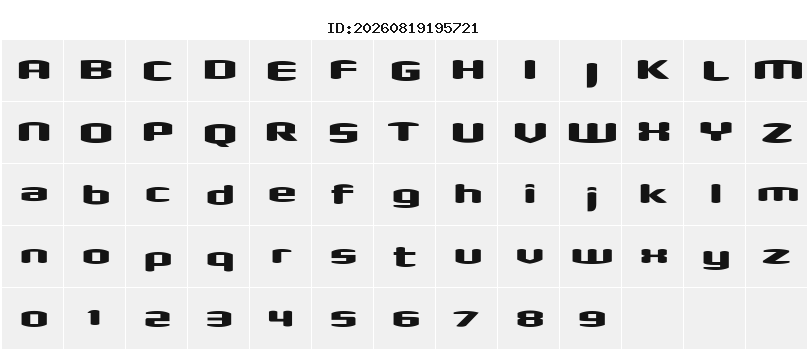
Shimano Preview
• Font Name: Shimano
• Full Font Name: Shimano-RoundBlack
About Shimano.ttf
Shimano.ttf is a modern, elegant sans-serif font designed for ultimate readability and visual harmony. Perfect for branding, headlines, web design, and print materials.